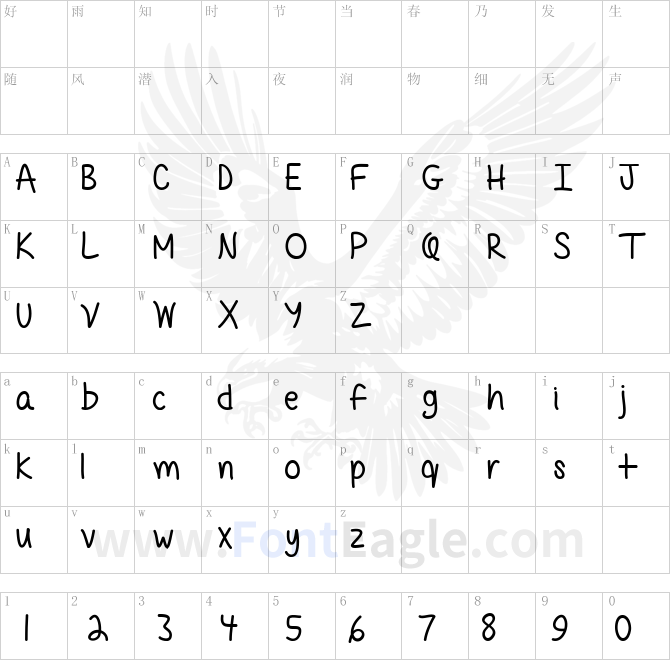
- Font name:Mf Quirky & Messy
- Font Full Name:Mf Quirky & Messy
Mf-Quirky-Messy is a great font, widely used in graphic design, single-page menu design, poster design and other fields, and is deeply loved by designers.Mf-Quirky-Messy download.